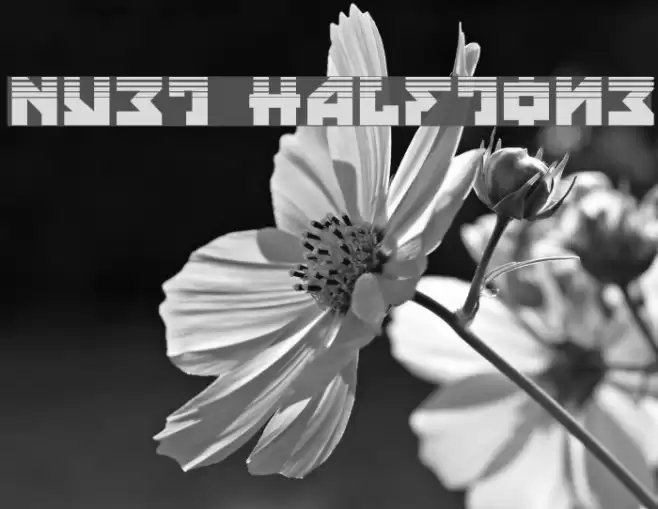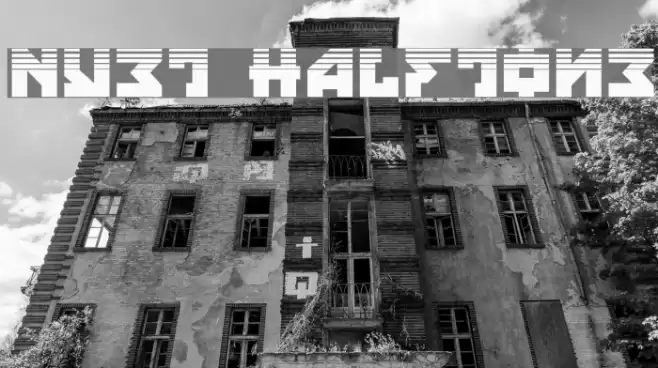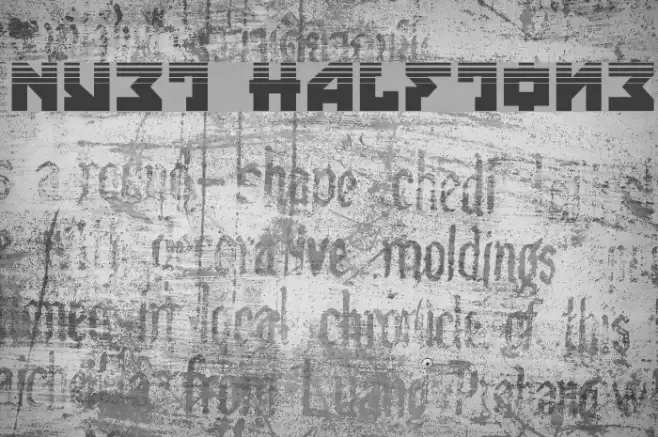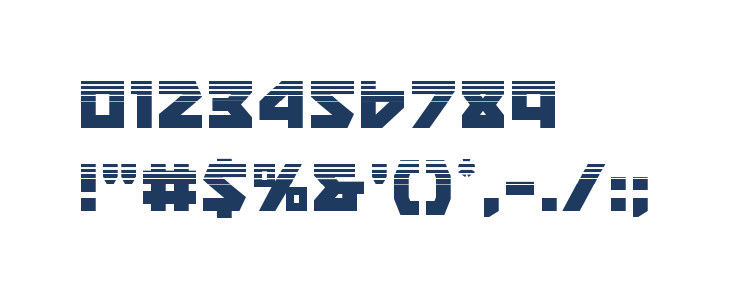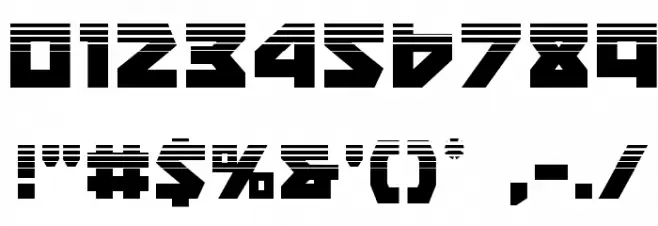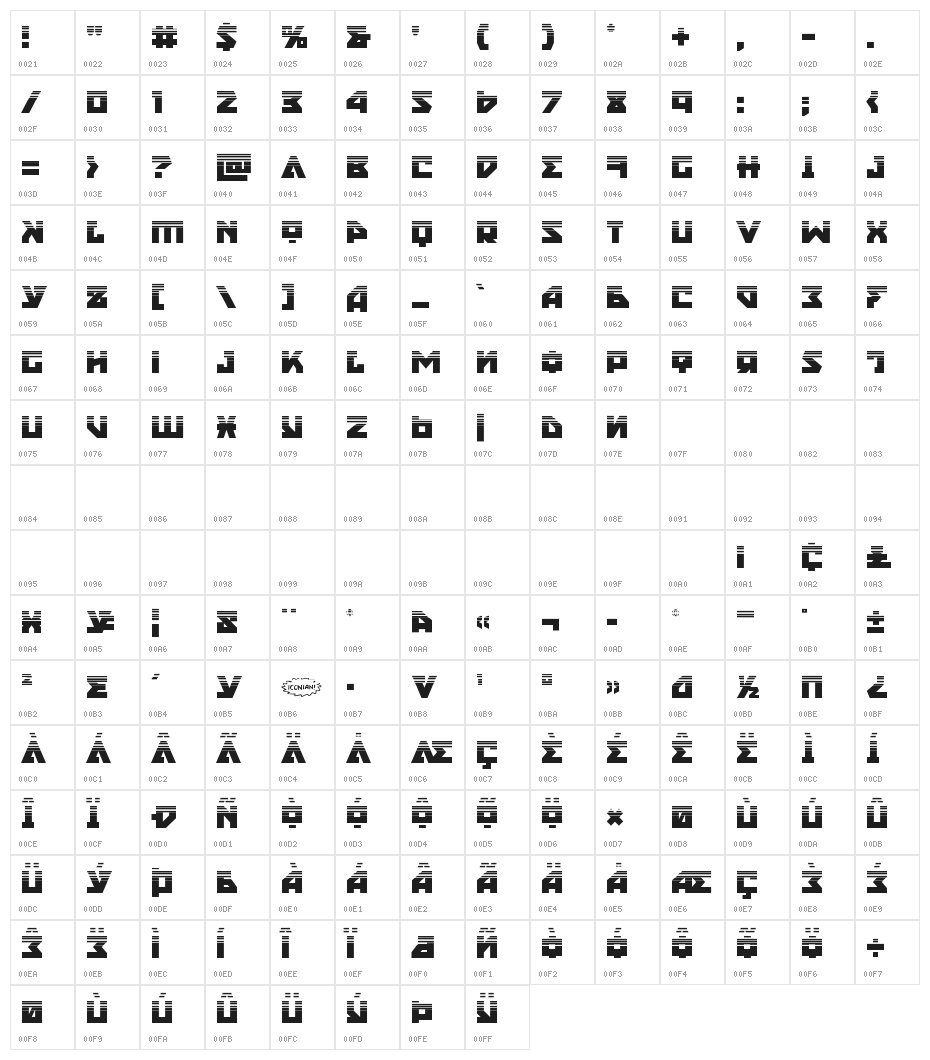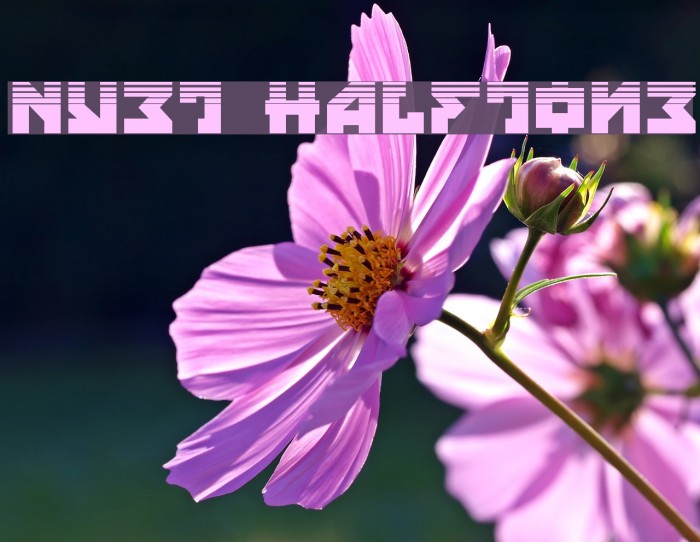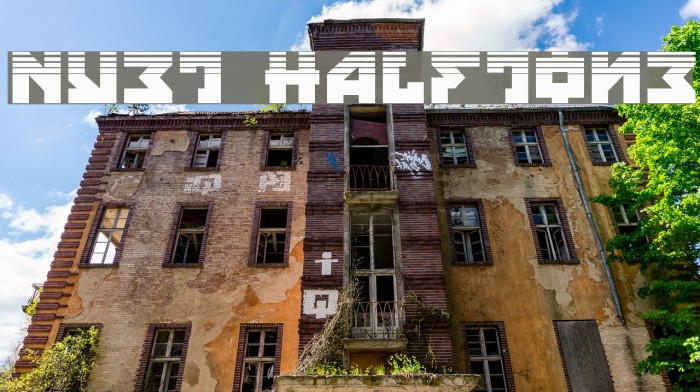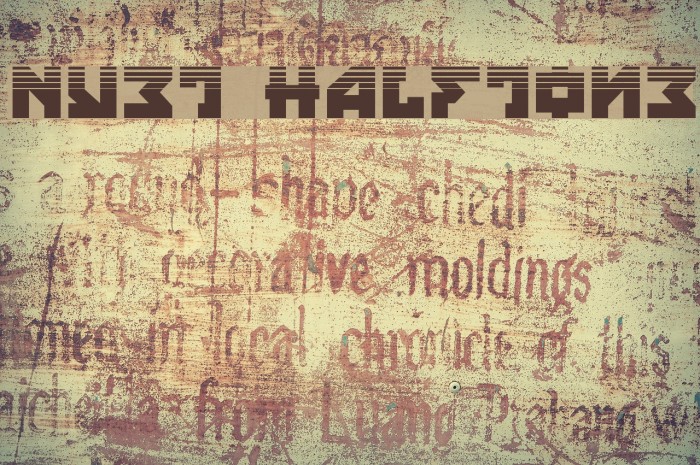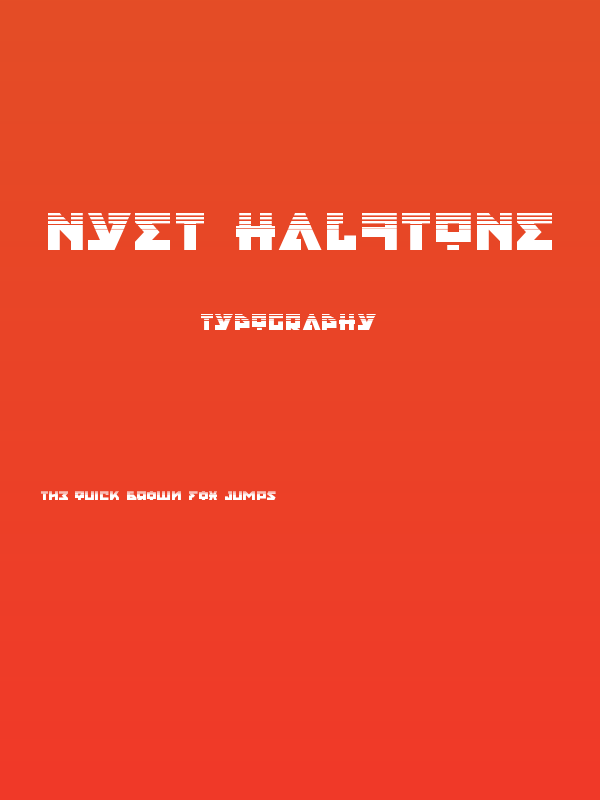
Nyet Halftone Font
Nyet Halftone Description
This font features a bold, geometric design with a distinct halftone effect, characterized by horizontal lines that create a sense of movement and depth. The uppercase and lowercase letters maintain a consistent angular style, with sharp edges and a futuristic appearance. The numbers and special characters follow the same design principles, ensuring uniformity across all glyphs. This font is highly stylized, making it ideal for projects that require a modern and edgy look. Its unique structure and bold presence make it stand out, perfect for attention-grabbing headlines or logos.
A bold, geometric font with a halftone effect and futuristic style from Uncategorized fonts.
- Proposed Projects: Ideal for branding, posters, album covers, and any project needing a modern, edgy aesthetic.